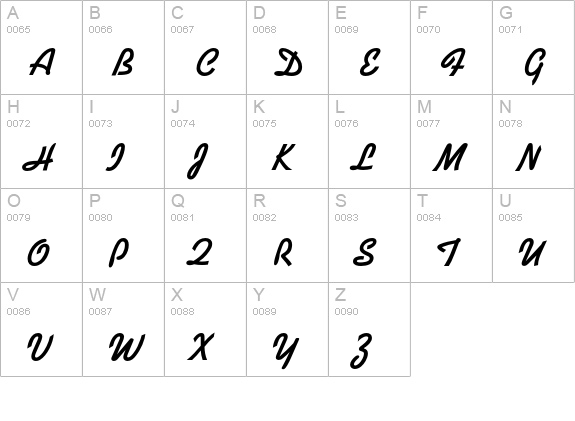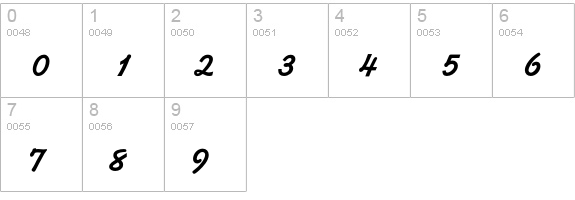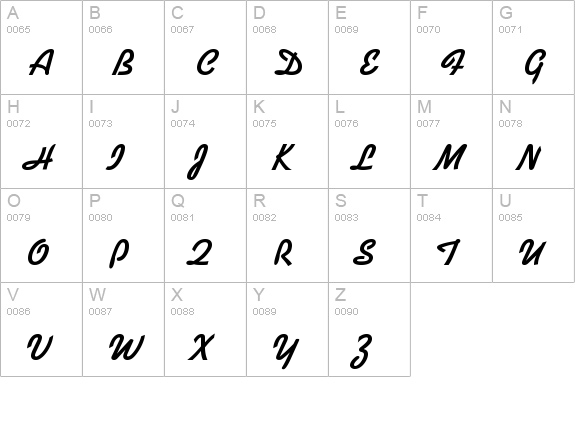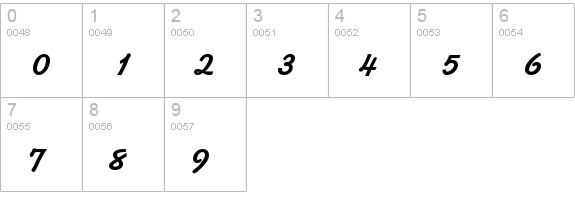
KaufmannEF Font Details
KaufmannEF font is a stunning and versatile typeface that exudes elegance and sophistication. With its graceful curves and distinct letterforms, this font is perfect for adding a touch of class to any project. One of the most remarkable features of KaufmannEF font is its versatility. Whether you're designing a logo, creating a wedding invitation, or crafting a magazine layout, this font will effortlessly elevate your design to new heights. Its unique style and attention to detail make it a standout choice for any creative endeavor. What makes KaufmannEF font even more appealing is that it is free! Yes, you heard it right. This exceptional font can be freely downloaded from FontsMarket.com. This means that you can use it in both personal and commercial projects without any limitations. With KaufmannEF font, you have the opportunity to give your designs a professional and polished look, all while staying within your budget. Its legibility and aesthetic appeal make it a go-to choice for designers and typographers alike. So why wait? Take advantage of this incredible opportunity and download KaufmannEF font for free at FontsMarket.com. Let your creativity run wild and watch as this font adds a touch of elegance and charm to your designs.